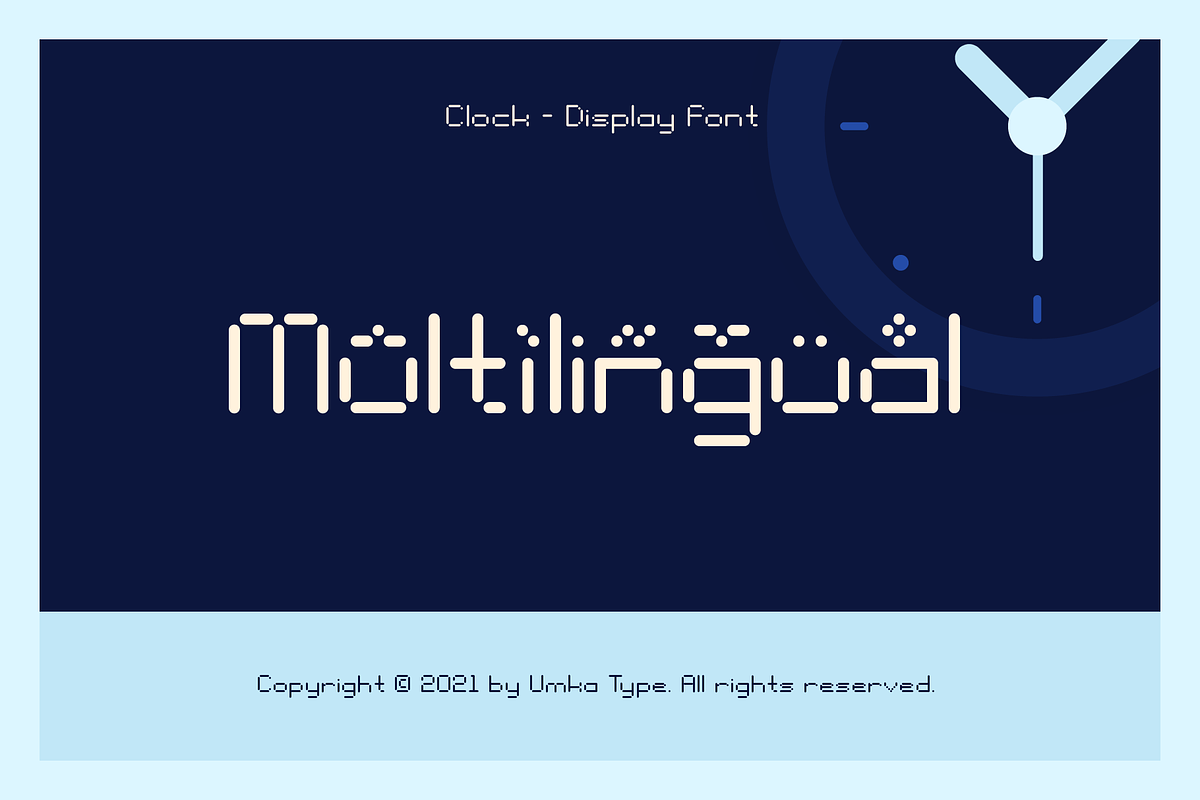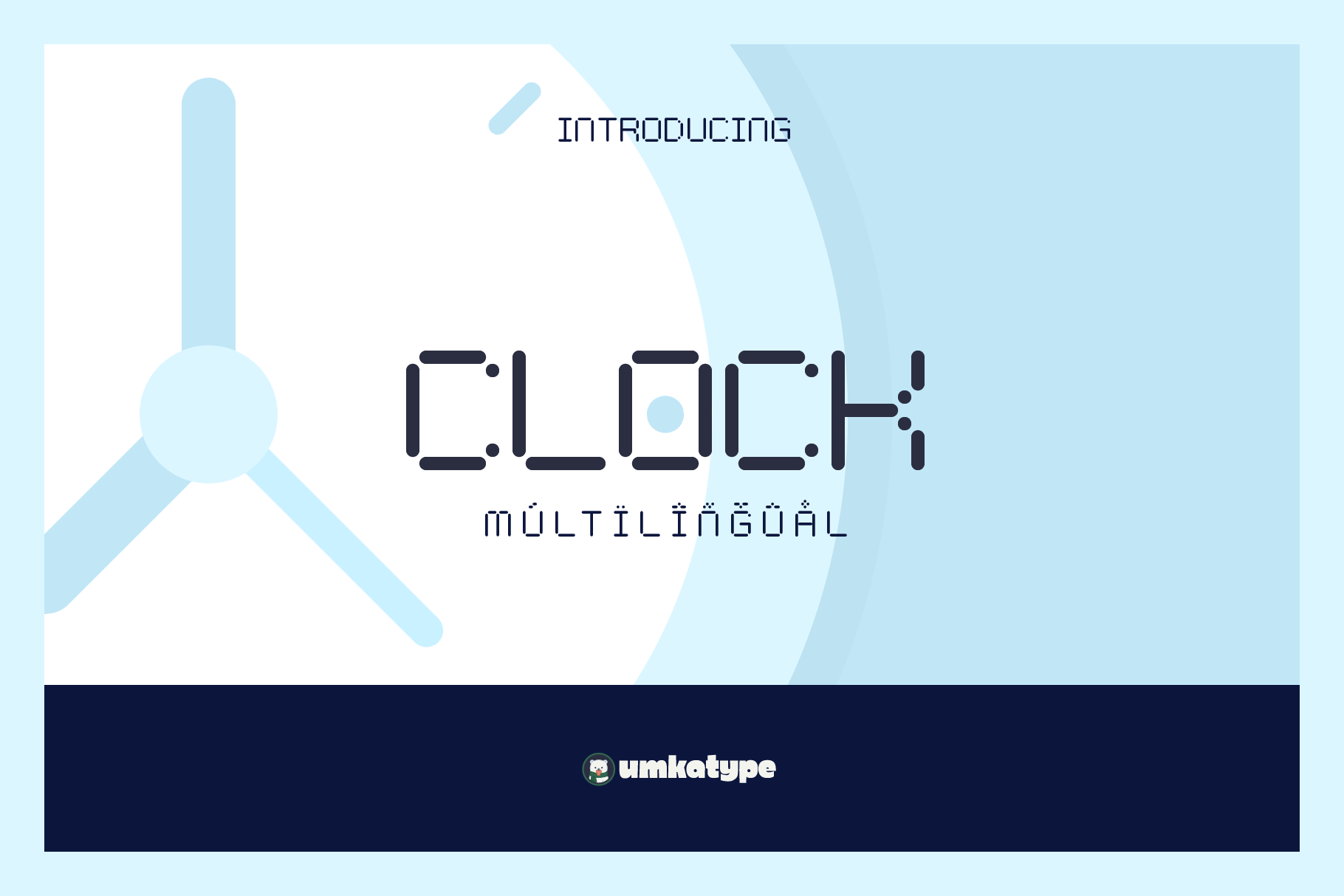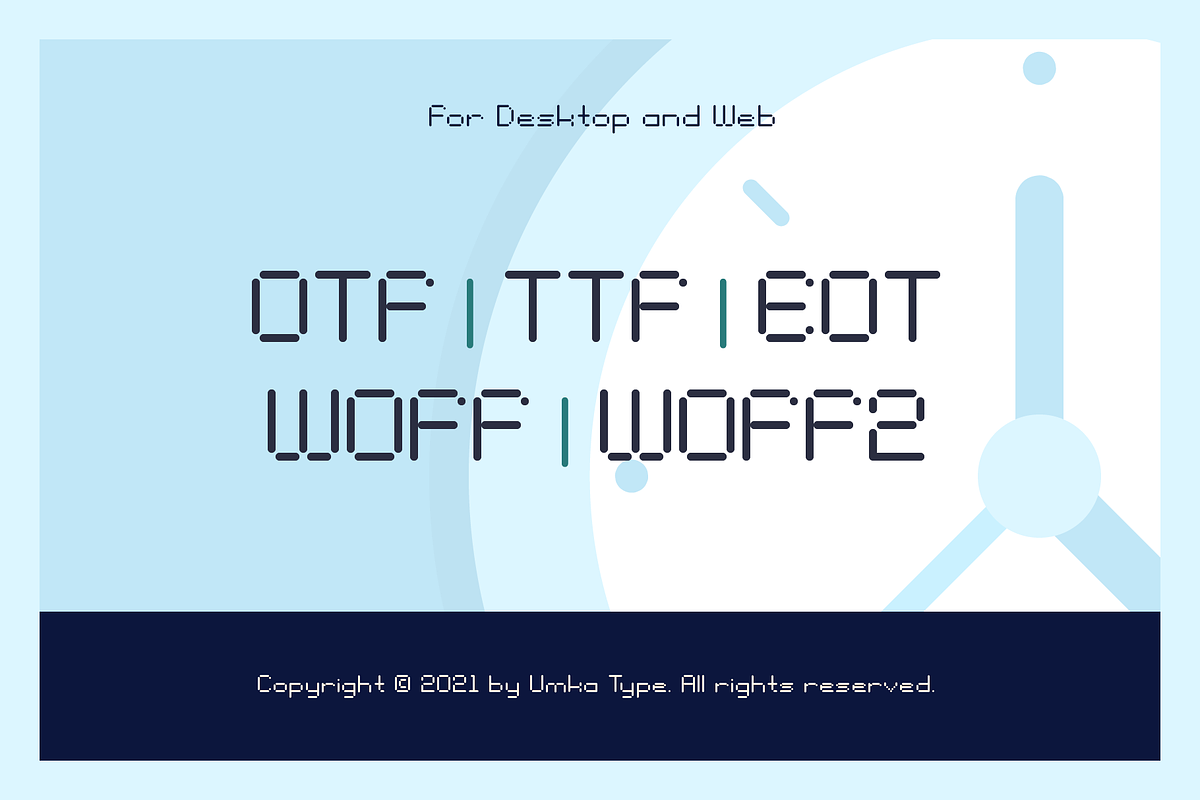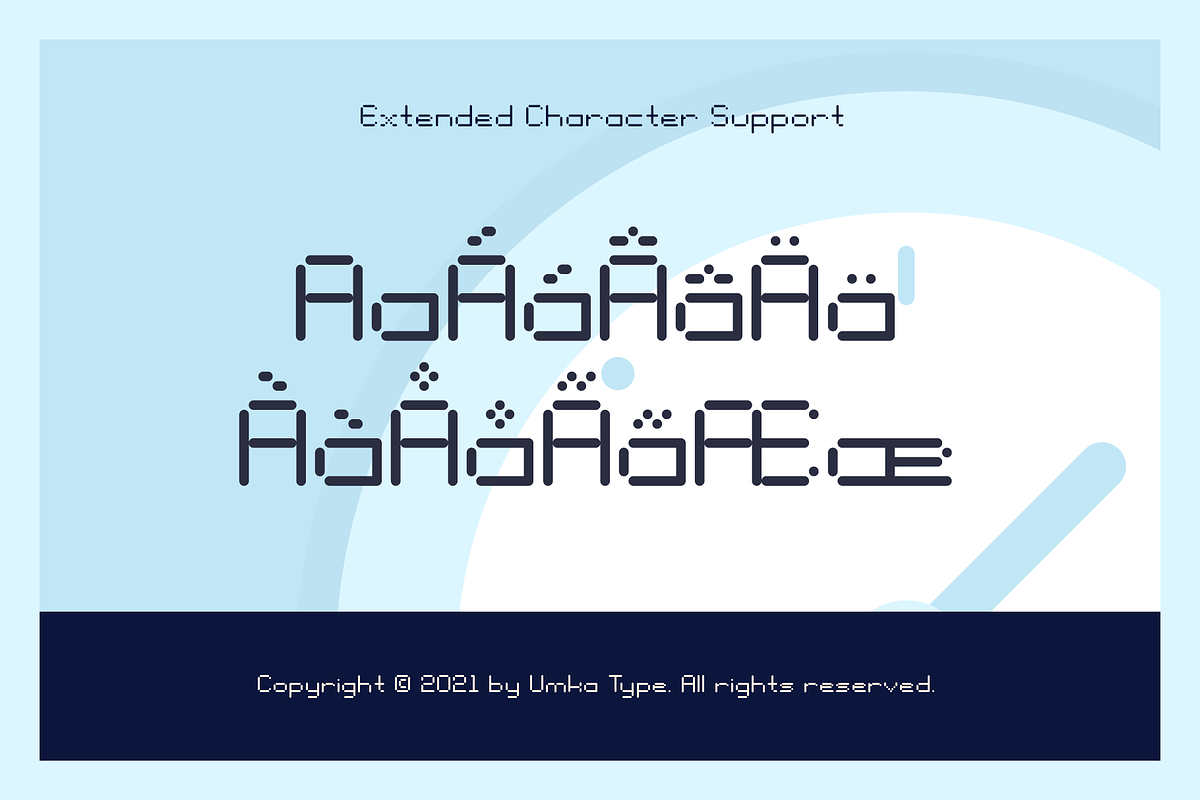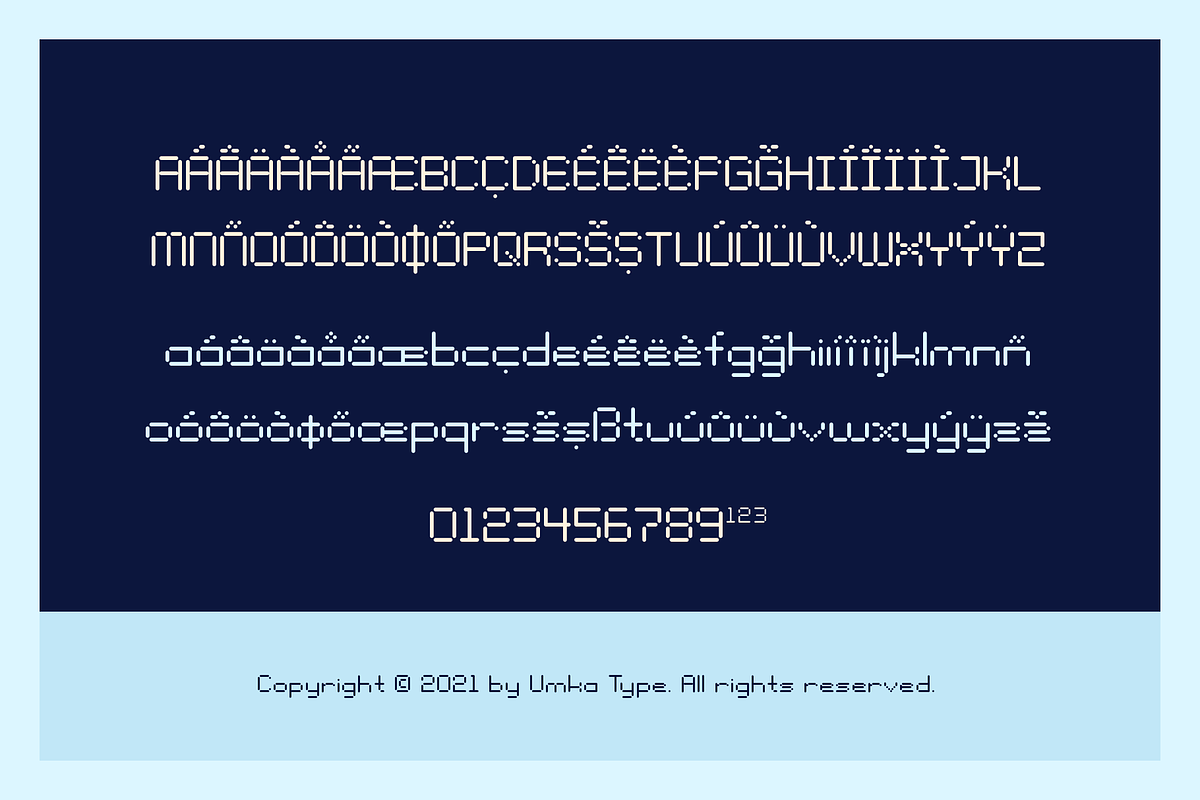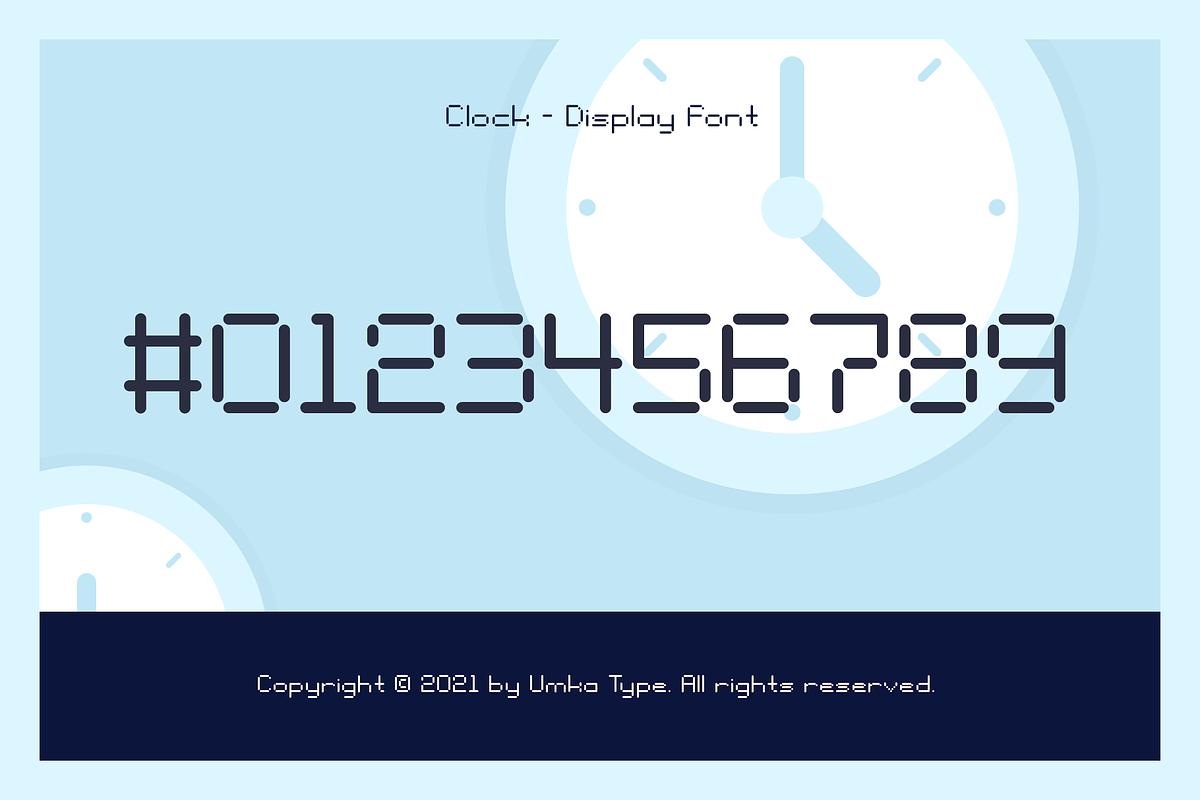
Clock Pixel Game Font
Clock - A Display Font
- Clock is a carefully crafted fun font.
- Multilingual: It has Extended Latin and Extended Cyrillic letters.
Clock created for games, web design, branding and social media works.